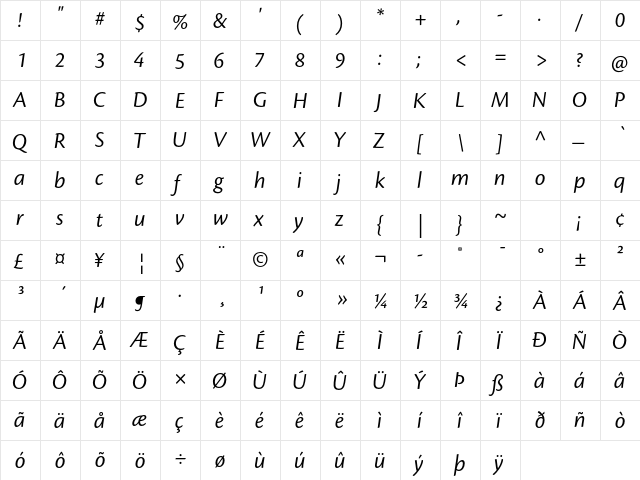
Cronos Pro Display Italic
| Designer | Robert Slimbach |
Design Context for Cronos Pro Typeface
Cronos Pro is built around its visual character rather than neutral utility — its distinctive forms are designed to make an impression at display sizes. The dynamic lean of this cut emphasises speed and emphasis in any layout.
Font Pairing: Pair with a clean neutral sans-serif for body copy to let Cronos Pro's character lead without overwhelming the composition.
Pro Tip: Use Cronos Pro exclusively at display sizes — it was designed to be seen, not read at length. Let a neutral companion handle body copy.